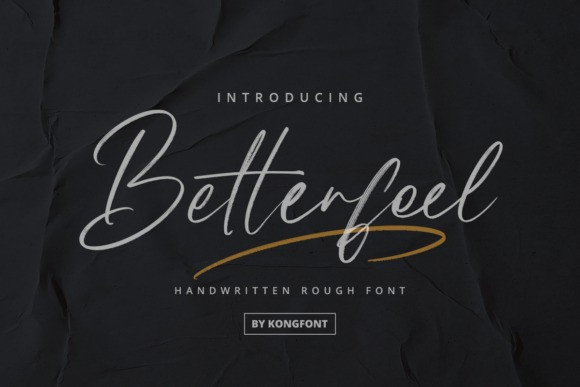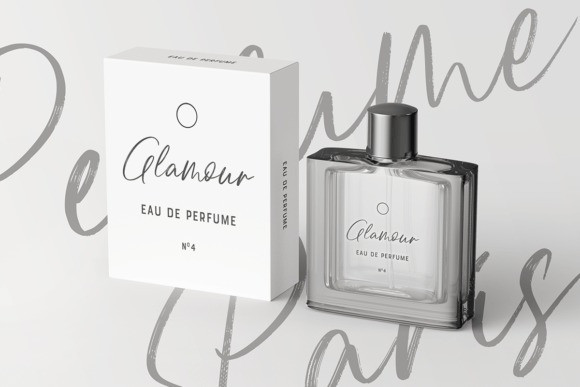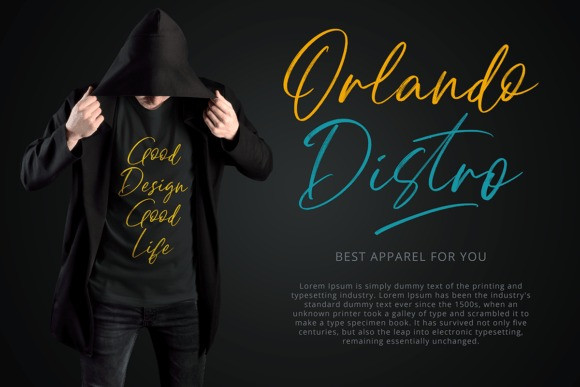
Betterfeel Font
Betterfeel is a beautiful and subtle script brush font that exudes elegance and class. It is specially designed for those who need a beautiful and refreshing look for their designs. This font is suitable for branding, headlines, and much more. This font is PUA encoded, which means you can access all of the amazing glyphs and ligatures with ease!